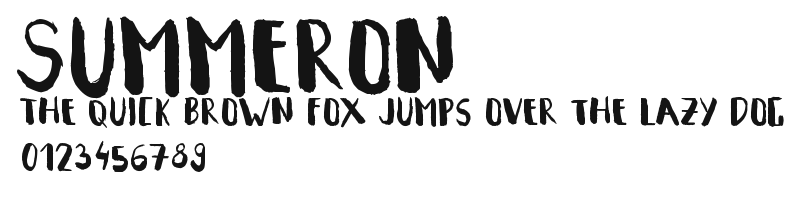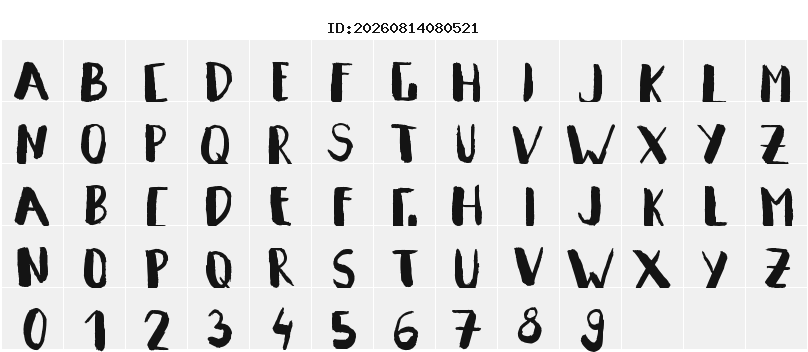
• Font Name: Summeron
• Full Font Name: Summeron
• Description: This font was created using Scanahand from High-Logic.com
About Summeron.ttf
Summeron.ttf is a modern, elegant sans-serif font designed for ultimate readability and visual harmony. Perfect for branding, headlines, web design, and print materials.